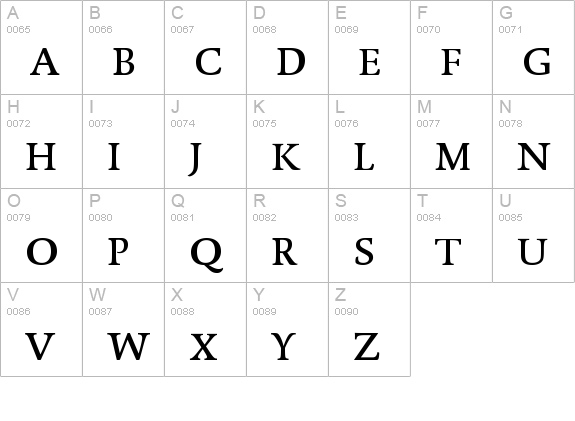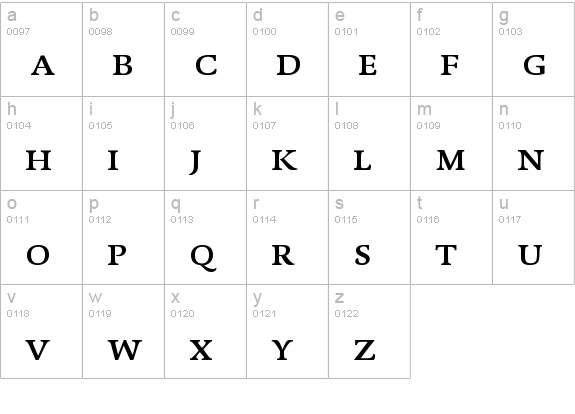
DTLDorianTCaps-Medium is a balanced, medium-weight variant in the DTLDorianTCaps typeface family \xE2\x80\x94 well suited to sub-headlines, navigation, and balanced editorial work.
DTLDorianTCaps-Medium is a stylish and versatile font that exudes a sense of sophistication and elegance. With its clean lines and modern aesthetic, this font is perfect for a wide range of design projects, from branding to editorial design. The medium weight of the font strikes the perfect balance between boldness and readability, making it ideal for both headlines and body text. The best part? DTLDorianTCaps-Medium is available for free download at FontsMarket.com. This means you can easily add this beautiful font to your collection without any cost. Whether you're a professional designer or a hobbyist, DTLDorianTCaps-Medium is a valuable addition to your font library. Don't miss out on the opportunity to enhance your designs with this exceptional font - download it for free today!